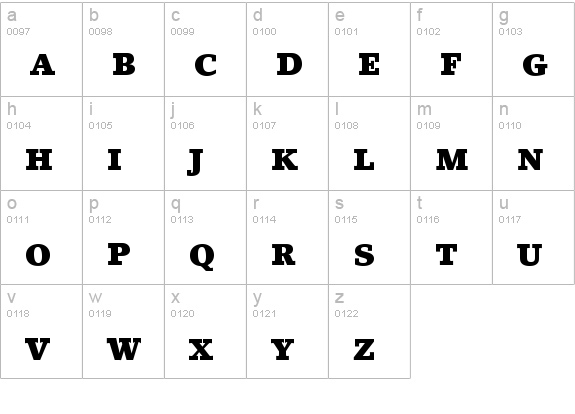
LinoLetter Black Small Caps & Oldstyle Figures Font Details
LinoLetter Black Small Caps & Oldstyle Figures is a maximum-weight, dramatic variant in the LinoLetter typeface family \xE2\x80\x94 well suited to maximum-impact headlines, posters, and packaging.
LinoLetter Black Small Caps & Oldstyle Figures font is a sophisticated and elegant typeface that exudes timeless charm and classic appeal. With its sleek design and refined details, this font is perfect for adding a touch of sophistication to any project. The combination of small caps and oldstyle figures adds a unique flair that sets this font apart from the rest. Best of all, LinoLetter Black Small Caps & Oldstyle Figures font is completely free to download at FontsMarket.com. Whether you're working on a professional design project or simply looking to elevate your personal creations, this font is a must-have addition to your collection. Don't miss out on the opportunity to enhance your designs with this versatile and stylish font, available for free download now.